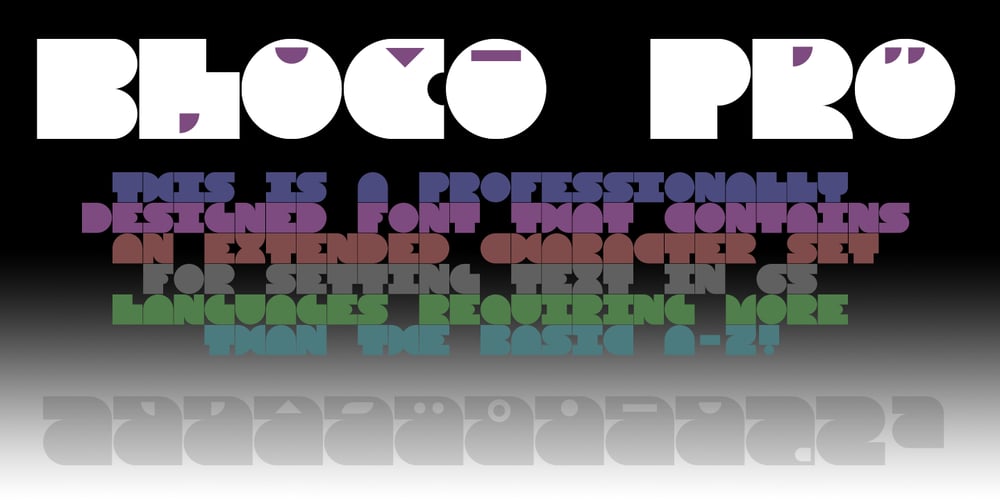
Bloco Pro Font Family was designed by Roger S. Nelsson and published by CheapProFonts. Bloco Pro contains 1 styles and family package options. Geometric elements combined to create solid square letters. Makes for interesting blocks of text – and headings. All the diacritical letters have the diacritic embedded into the base letter, so every glyph in this font is within a square. Start stacking your text! ALL fonts from CheapProFonts have very extensive language support: They contain some unusual diacritic letters (some of which are contained in the Latin Extended-B Unicode block) supporting: Cornish, Filipino (Tagalog), Guarani, Luxembourgian, Malagasy, Romanian, Ulithian and Welsh. They also contain all glyphs in the Latin Extended-A Unicode block (which among others cover the Central European and Baltic areas) supporting: Afrikaans, Belarusian (Lacinka), Bosnian, Catalan, Chichewa, Croatian, Czech, Dutch, Esperanto, Greenlandic, Hungarian, Kashubian, Kurdish (Kurmanji), Latvian, Lithuanian, Maltese, Maori, Polish, Saami (Inari), Saami (North), Serbian (latin), Slovak(ian), Slovene, Sorbian (Lower), Sorbian (Upper), Turkish and Turkmen. And they of course contain all the usual “western” glyphs supporting: Albanian, Basque, Breton, Chamorro, Danish, Estonian, Faroese, Finnish, French, Frisian, Galican, German, Icelandic, Indonesian, Irish (Gaelic), Italian, Northern Sotho, Norwegian, Occitan, Portuguese, Rhaeto-Romance, Sami (Lule), Sami (South), Scots (Gaelic), Spanish, Swedish, Tswana, Walloon and Yapese.